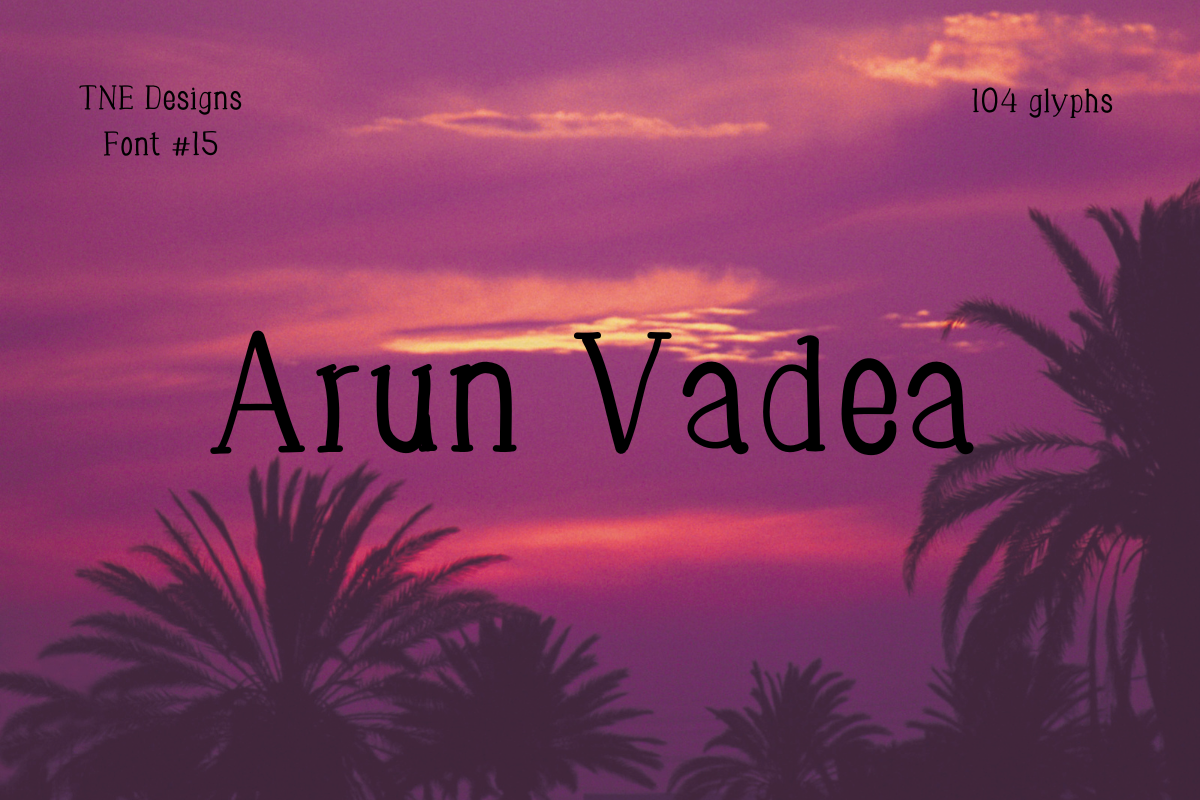
Arun Vadea Font Free Download is a beautifully crafted serif typeface that combines elegance with artistic flair. With its flowing strokes, stylish curves, and refined details, Arun Vadea is perfect for wedding invitations, fashion branding, editorial layouts, social media graphics, and upscale packaging.
This font stands out with its high contrast and graceful form, offering both sophistication and charm. Whether you're working on a romantic design or a luxury project, Arun Vadea brings a timeless yet fresh personality to your typography.